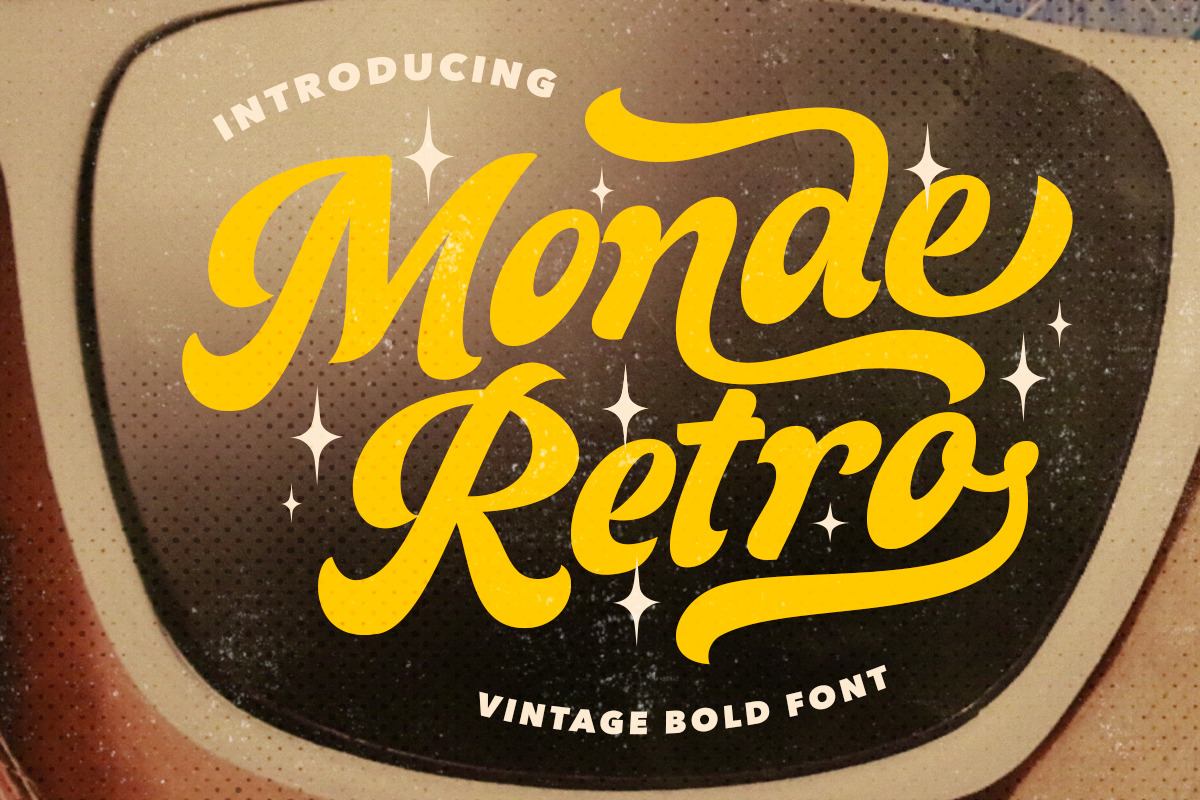
Monde Retro – Vintage Bold Font Free Download is a striking typeface that blends retro charm with bold, eye-catching design. Inspired by classic signage and vintage advertising, this font is perfect for logos, posters, T-shirts, product labels, and branding projects that need a nostalgic yet powerful look. Its thick strokes, curved lines, and playful vibe make it stand out with personality and flair.
Whether you're designing for a throwback event, a retro-themed brand, or just want your message to pop, Monde Retro – Vintage Bold Font Free Download offers the perfect combination of style and impact. It’s ideal for creating a sense of authenticity and fun in your visual storytelling.